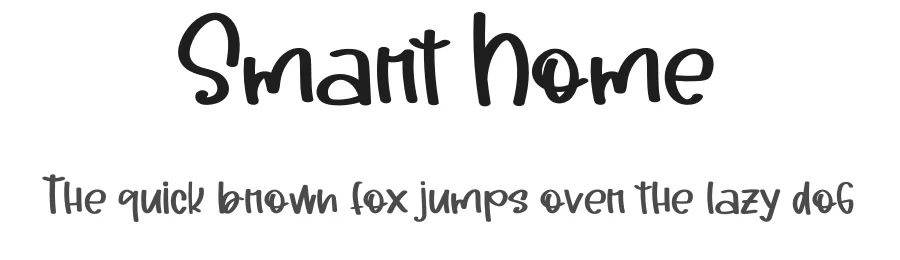
About Every little thing that you do Font
Every little thing that you do Specifications
| Font Family | Every little thing that you do |
| Full Name | Every little thing that you do |
| Version | 1.00 March 20, 2015, initial release |
| Glyph Count | 261 glyphs |
| PostScript Name | Everylittlethingthatyoudo |
| Designer | junkohanhero |
Every little thing that you do Font is a script font that shines as a display or heading face. Pair it with a clean sans-serif or serif font for body text β the contrast creates a clear hierarchy while the two styles stay balanced and easy to read.